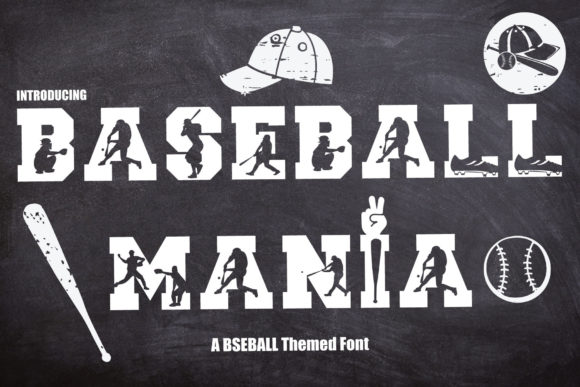
Baseball Mania Font: Elevate Your Baseball Designs with a Cool and Bold Typeface
Are you a baseball enthusiast looking for a font that captures the excitement and energy of the game? Look no further than the Baseball Mania Font. This decorative font is specifically designed to add a touch of coolness and boldness to your baseball-related designs, making it perfect for fans, designers, and marketers alike. In this article, we’ll dive into the features and benefits of Baseball Mania Font, and explore how it can elevate your designs to the next level.
What is Baseball Mania Font?
Baseball Mania Font is a decorative typeface inspired by the world of baseball. Its unique design combines bold lines, dynamic curves, and a sporty feel to create a font that’s both eye-catching and authentic. Whether you’re designing a logo, poster, or social media graphic, Baseball Mania Font is the perfect choice for adding a touch of baseball flair.
Key Features of Baseball Mania Font
- Cool and Bold Design: Baseball Mania Font boasts a bold and edgy design that’s sure to grab attention. Its cool and sporty vibe makes it perfect for baseball-themed designs.
- Highly Versatile: This font is suitable for a wide range of design projects, from logos and posters to social media graphics and merchandise.
- Easily Readable: Despite its bold design, Baseball Mania Font remains highly readable, making it perfect for headlines, titles, and short paragraphs.
- Unique Character Set: The font includes a range of characters, symbols, and ligatures that are specific to baseball, adding an extra layer of authenticity to your designs.
Benefits of Using Baseball Mania Font
- Instant Recognition: The bold and sporty design of Baseball Mania Font ensures instant recognition and attention-grabbing impact.
- Authenticity: The font’s baseball-inspired design elements add an air of authenticity to your designs, making them perfect for baseball teams, leagues, and events.
- Customization: With its highly versatile design, Baseball Mania Font can be easily customized to fit your brand’s unique style and tone.
- Time-Saving: The font’s pre-designed characters and symbols save you time and effort, allowing you to focus on the creative aspects of your design.
How to Use Baseball Mania Font in Your Designs
Using Baseball Mania Font in your designs is easy. Here are a few tips to get you started:
- Pair it with Other Fonts: Combine Baseball Mania Font with other fonts to create a unique and visually appealing design.
- Experiment with Colors: Try out different color schemes to find the perfect match for your brand or design.
- Use it for Headlines and Titles: Baseball Mania Font is perfect for headlines and titles, adding a bold and attention-grabbing touch to your designs.
- Add Baseball-Themed Elements: Take your designs to the next level by incorporating baseball-themed elements, such as logos, icons, or imagery.
Who Can Benefit from Baseball Mania Font?
Baseball Mania Font is perfect for a wide range of individuals and organizations, including:
- Baseball Teams and Leagues: Add a professional and sporty touch to your team’s branding, uniforms, and marketing materials.
- Designers and Marketers: Create stunning baseball-themed designs for clients or personal projects.
- Baseball Event Organizers: Promote your events with eye-catching posters, flyers, and social media graphics.
- Merchandisers: Create unique and appealing merchandise, such as t-shirts, hats, and stickers, for baseball fans.
Baseball Mania Font is a cool, bold, and inspired decorative font that’s perfect for adding a touch of baseball flair to your designs. With its highly versatile design, unique character set, and easily readable text, this font is sure to elevate your baseball-related designs to the next level. Whether you’re a designer, marketer, or baseball enthusiast, Baseball Mania Font is a must-have for creating stunning and authentic baseball-themed designs.
Get Ready to Knock Your Designs Out of the Park!
Don’t settle for bland and generic fonts. Add Baseball Mania Font to your design arsenal and get ready to create stunning baseball-themed designs that will leave a lasting impression. With its bold and sporty design, this font is sure to be a home run for any design project.